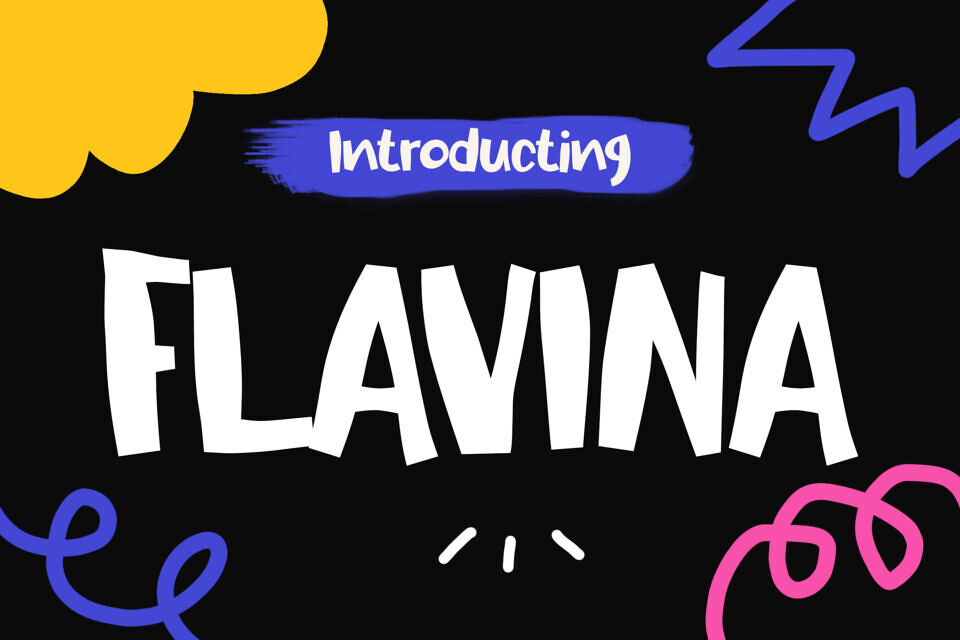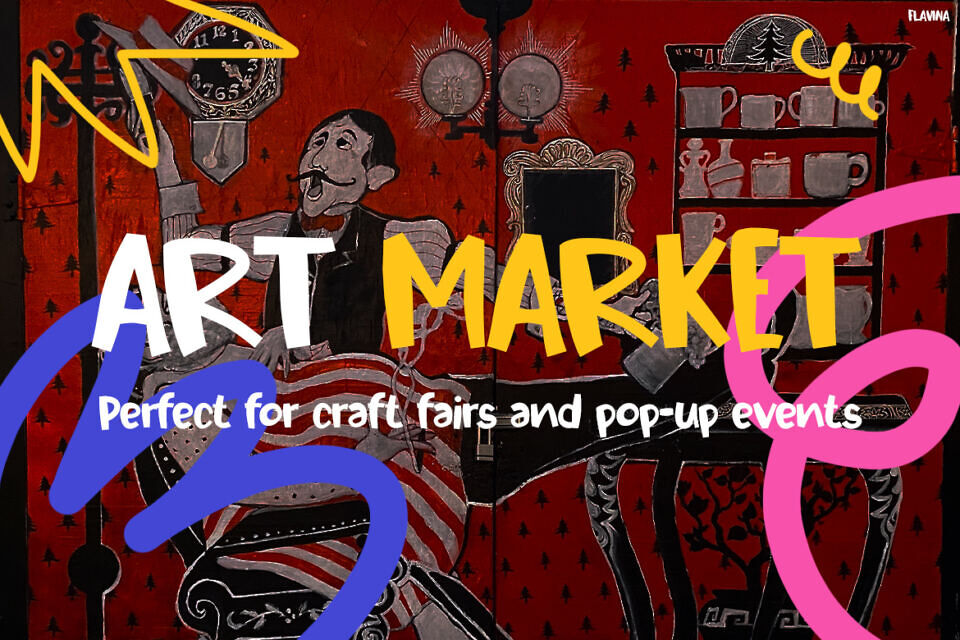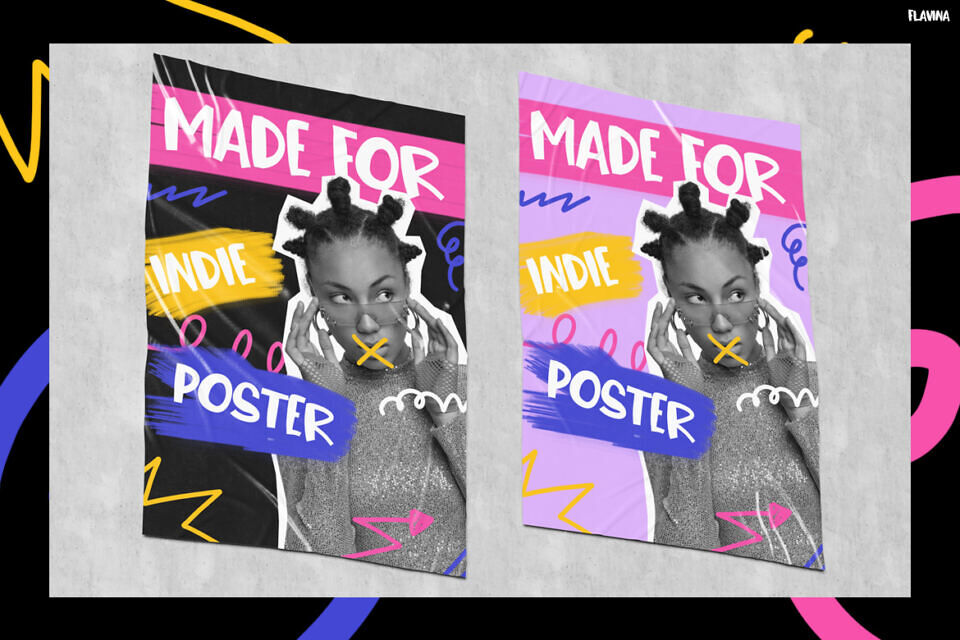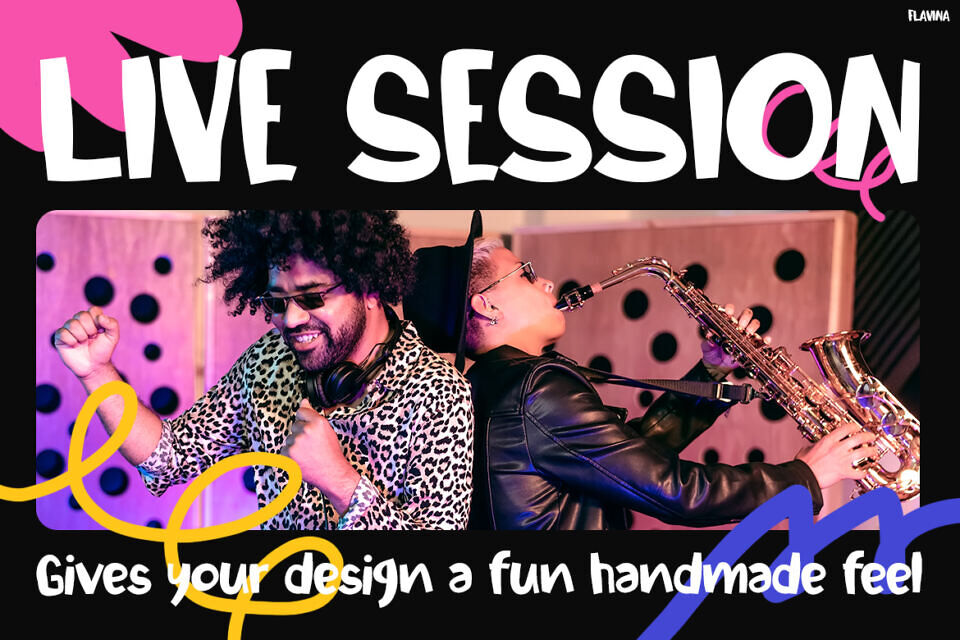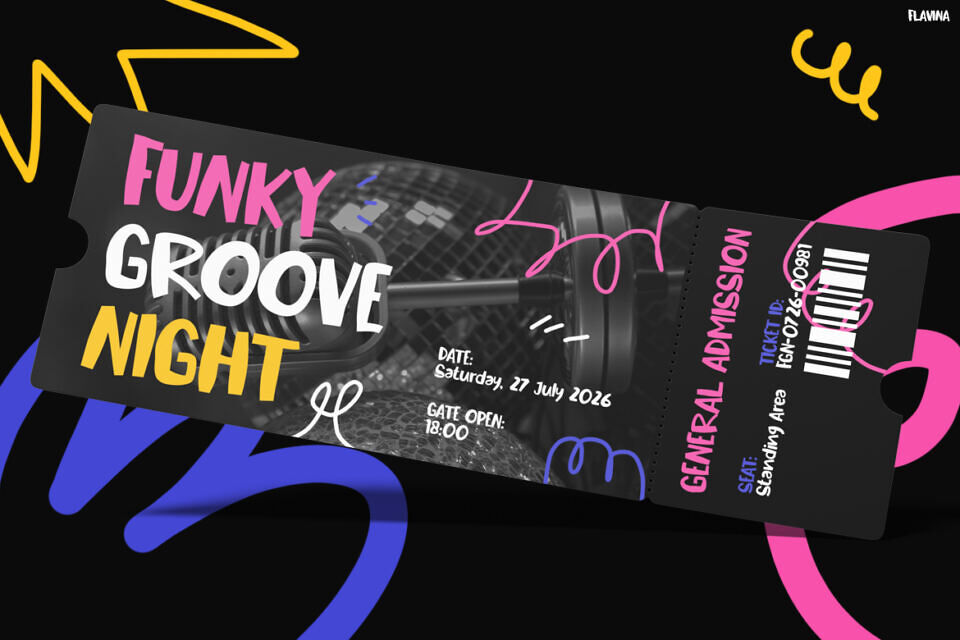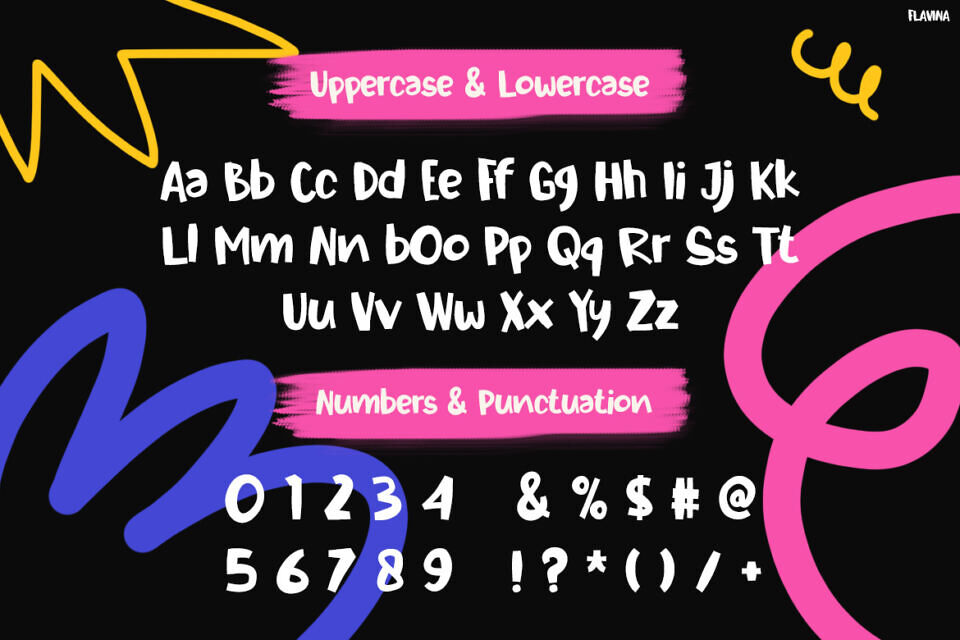
Flavina is a bold, funky display typeface that bursts with color, energy, and playful attitude. Moreover, its chunky letterforms and lively curves create a standout visual that feels fresh and expressive. In addition, the mix of quirky shapes and dynamic style gives every design a fun, handmade vibe. Not only does it grab attention instantly, but it also keeps text readable and impactful. As a result, this font becomes the perfect tool to create vibrant, youthful, and eye-catching visuals across any creative project.
Flavina brings a high-energy, pop-style aesthetic that fits perfectly with modern creative trends. For instance, it shines in music posters, festival branding, kids-themed designs, and social media graphics. Furthermore, its playful personality adds excitement and emotion, making every layout feel alive and engaging.